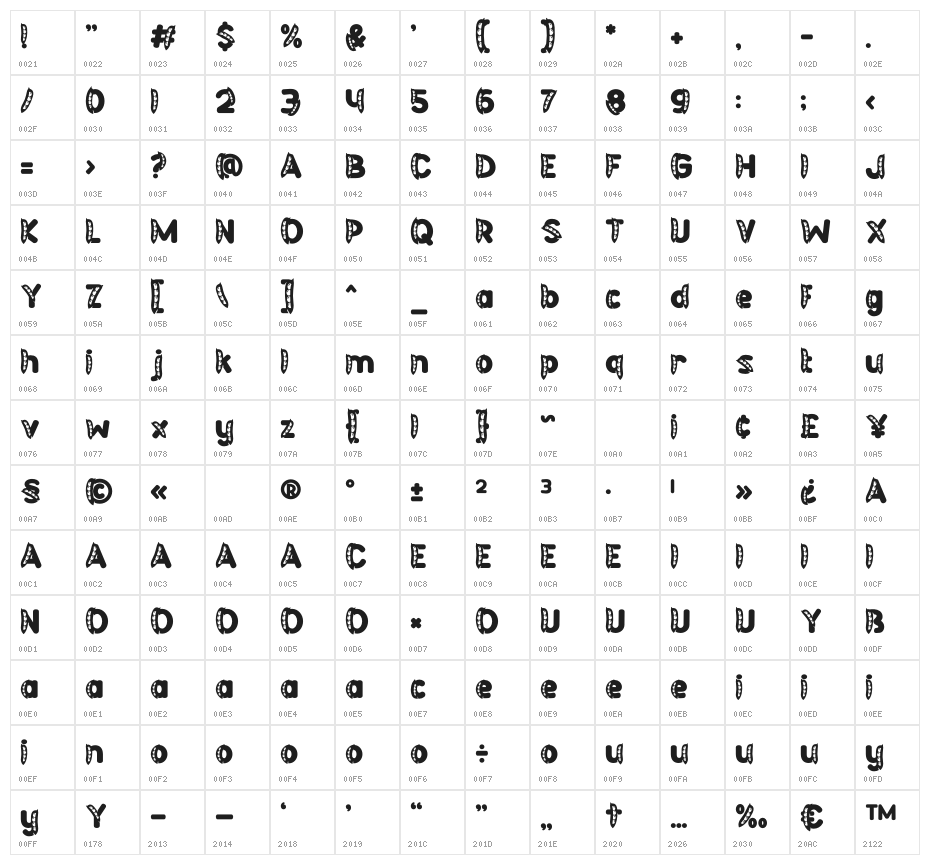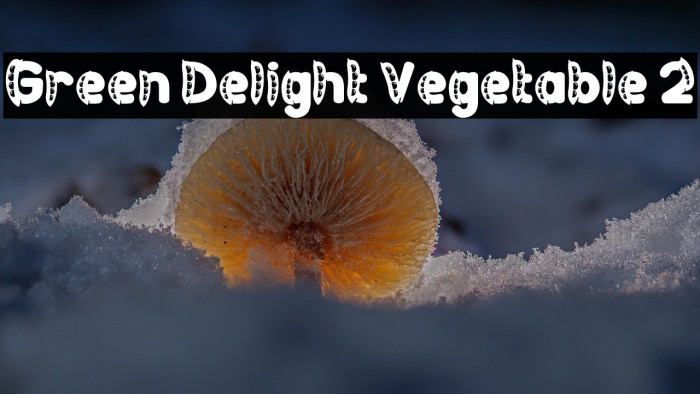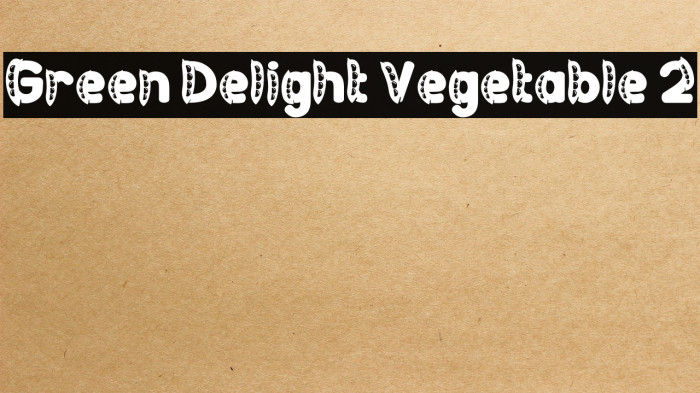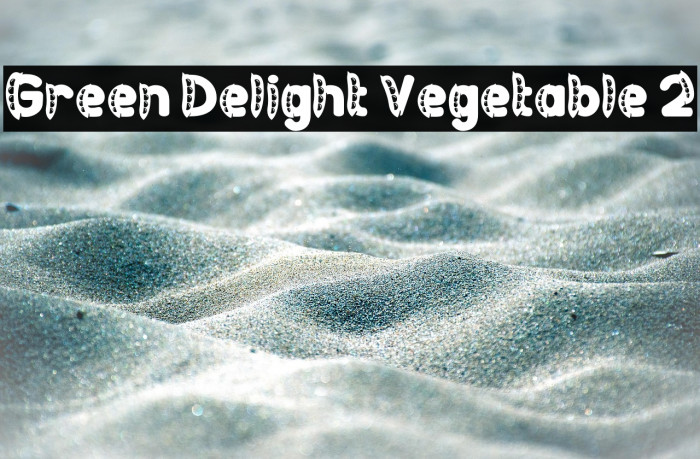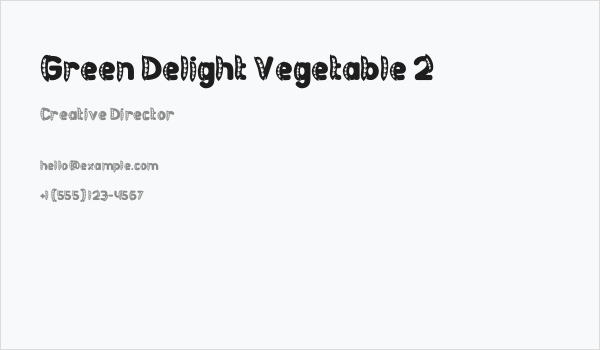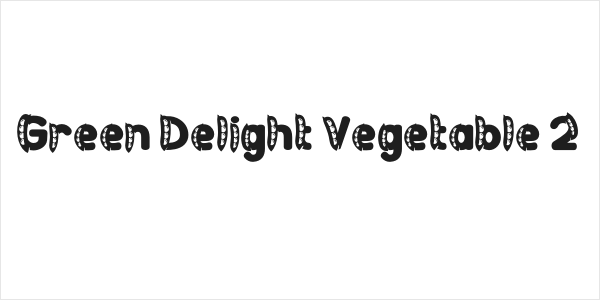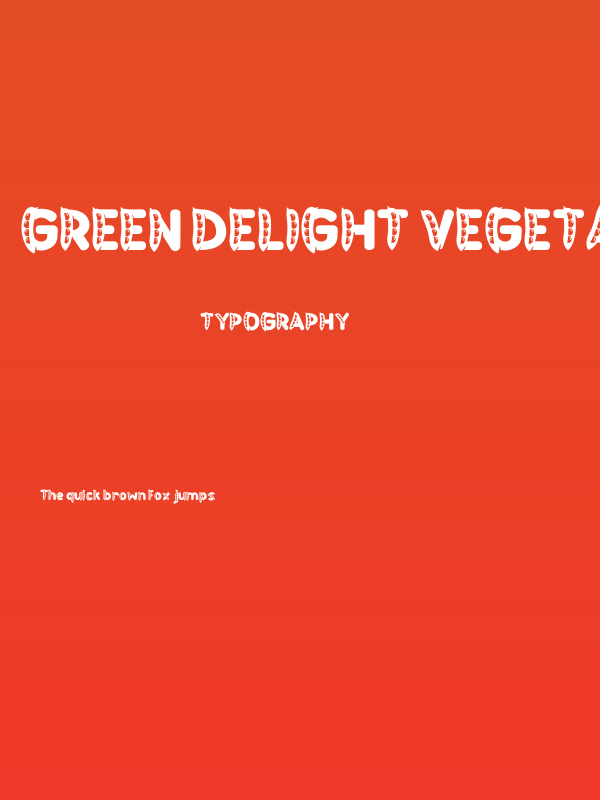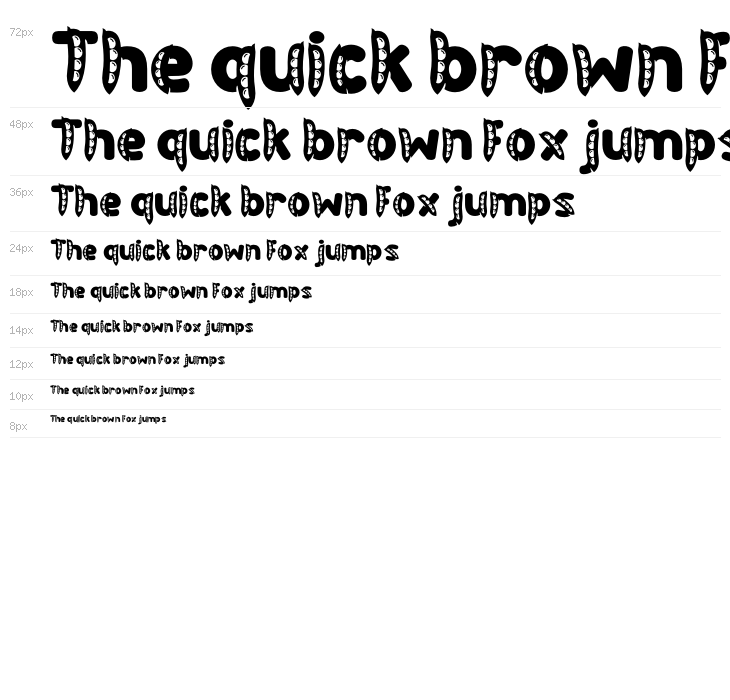
Green Delight Vegetable 2 Font
Green Delight Vegetable 2 Description
This font features a playful and whimsical design with a unique pattern inside each character, resembling a series of small, leaf-like shapes. The bold and rounded letterforms create a sense of fun and creativity, making it ideal for projects that require a touch of humor or lightheartedness. The uppercase and lowercase letters maintain a consistent style, with the decorative elements adding a distinctive flair. The numbers and special characters follow the same design principles, ensuring a cohesive look across all text elements. This font's quirky and eye-catching appearance makes it perfect for children's books, playful branding, or any project that aims to capture attention with a creative twist.
Overall StylePlayful, Whimsical, Creative
Proposed ProjectsIdeal for children's books, playful branding, creative posters, and any project needing a fun, eye-catching font.